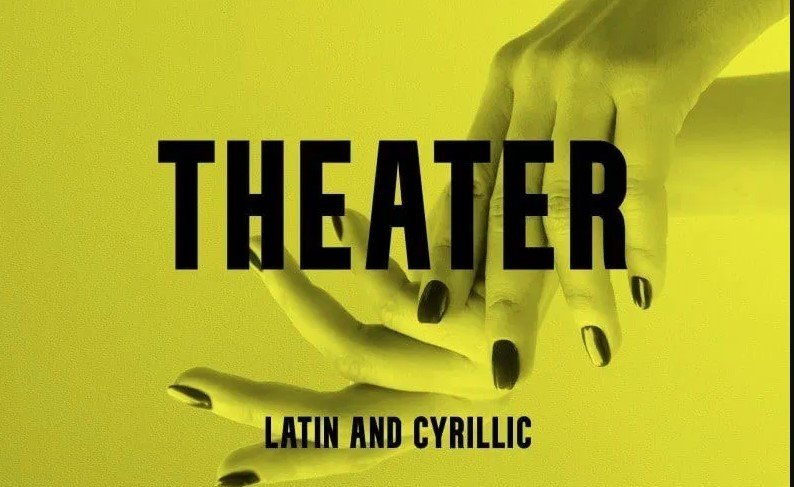
Presenting the Theater Bold Sans Serif Font created by our exceptional designers, featuring outstanding characteristics that enhance any design with beauty, uniqueness, elegance, and awesomeness. It boasts heavy condensed styles, striking glyphs, tall height, and uniformity across all its character letterforms.
There are various ways to utilize this great font in your project. The best and smartest way to add interactivity to your designs is to use it as a pairing with the combination of caslon graphique font for taking all the advantages of pairing use.
View Of Theater Bold Sans Serif Font
Here we provide an image which includes the characters and letters of this beautiful, you can perceive it by viewing the image and get an idea how delightful it is.